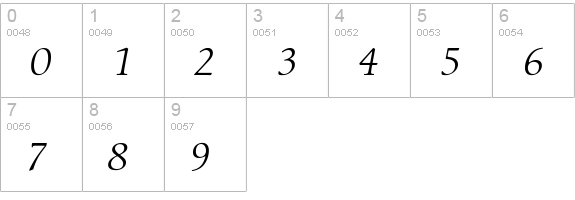
CerigoEF-BookItalic Font Details
CerigoEF-BookItalic is a modern and elegant font that exudes sophistication and style. Its sleek and flowing italic design adds a touch of flair to any project, making it perfect for use in branding, advertising, and editorial design. This versatile font is ideal for creating eye-catching headlines, elegant invitations, or stylish logos. What sets CerigoEF-BookItalic apart is not only its stunning design but also the fact that it is available for free. Yes, you read that right - this premium font can be downloaded at no cost from FontsMarket.com. Whether you're a designer looking to add a touch of sophistication to your projects or a business owner wanting to elevate your branding, CerigoEF-BookItalic is the perfect choice. Download it today and add a touch of elegance to your next project.